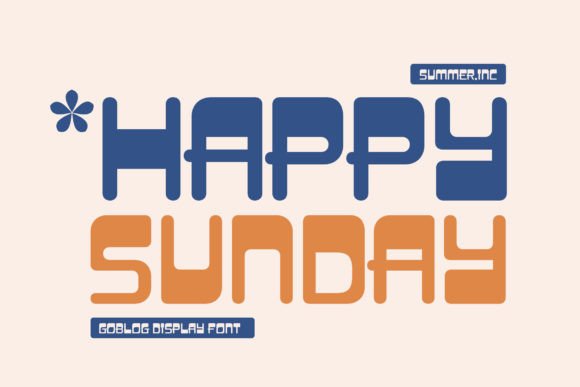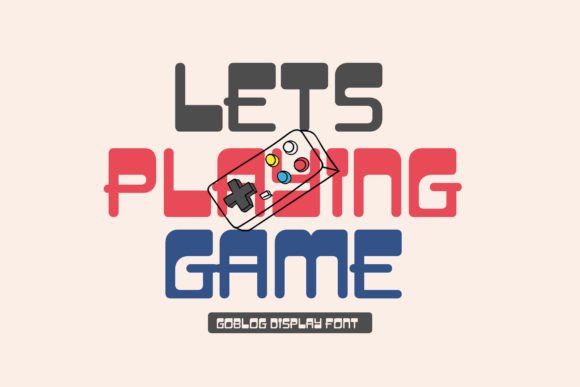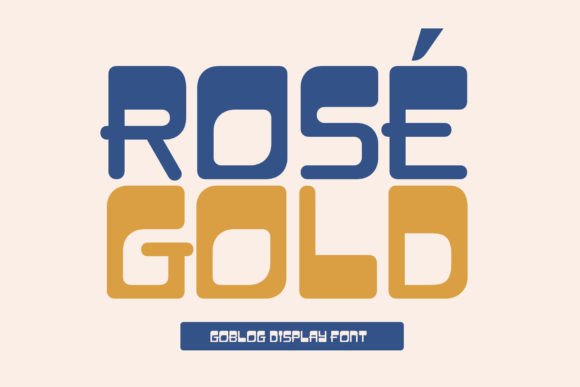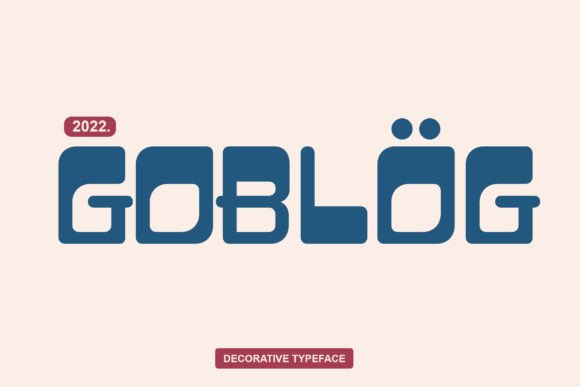
Goblog Font: The Perfect Choice for Your Design Projects
Are you a designer or crafter looking for a versatile font to elevate your projects? Look no further than the Goblog Font! This stunning font is perfect for a wide range of applications, from books and magazines to logos, branding, photography, quotes, blog headers, posters, advertisements, and more.
What Makes Goblog Font So Special?
Goblog Font is a highly versatile font that offers a range of features that make it perfect for many projects. Here are just a few of the key benefits:
- Uppercase & Lowercase Letters: The Goblog Font includes both uppercase and lowercase letters, giving you the flexibility to create a wide range of designs.
- Numbers & Punctuation: The font also includes numbers and punctuation, making it easy to create professional-looking designs.
- Multilingual Support: The Goblog Font supports multiple languages, making it a great choice for designers and crafters who work with international clients or want to create designs for a global audience.
The Perfect Font for a Wide Range of Projects
So, what types of projects is the Goblog Font perfect for? Here are just a few ideas:
- Books and Magazines: The Goblog Font is a great choice for books and magazines, with its clear and readable design making it easy to read and understand.
- Logos and Branding: The font’s unique and stylish design makes it perfect for logos and branding, helping you to create a professional and memorable brand identity.
- Photography and Quotes: The Goblog Font is also a great choice for photography and quotes, with its elegant design complementing images and text beautifully.
- Blog Headers and Posters: The font’s bold and eye-catching design makes it perfect for blog headers and posters, helping you to grab attention and draw in your audience.
- Advertisements: The Goblog Font is also a great choice for advertisements, with its clear and readable design making it easy to communicate your message.
Why Choose Goblog Font?
So, why should you choose the Goblog Font for your design projects? Here are just a few reasons:
- Versatility: The Goblog Font is highly versatile, making it perfect for a wide range of projects and applications.
- Quality: The font is of high quality, with a unique and stylish design that will elevate your designs and help you to stand out.
- Easy to Use: The Goblog Font is easy to use, with a simple and intuitive design that makes it easy to get started.
- Multilingual Support: The font’s multilingual support makes it a great choice for designers and crafters who work with international clients or want to create designs for a global audience.
In conclusion, the Goblog Font is a highly versatile and stylish font that is perfect for a wide range of design projects. With its clear and readable design, multilingual support, and ease of use, it’s a great choice for designers and crafters who want to elevate their designs and create professional-looking results. Whether you’re working on a book, magazine, logo, branding, photography, quotes, blog header, poster, advertisement, or any other project, the Goblog Font is a great choice.